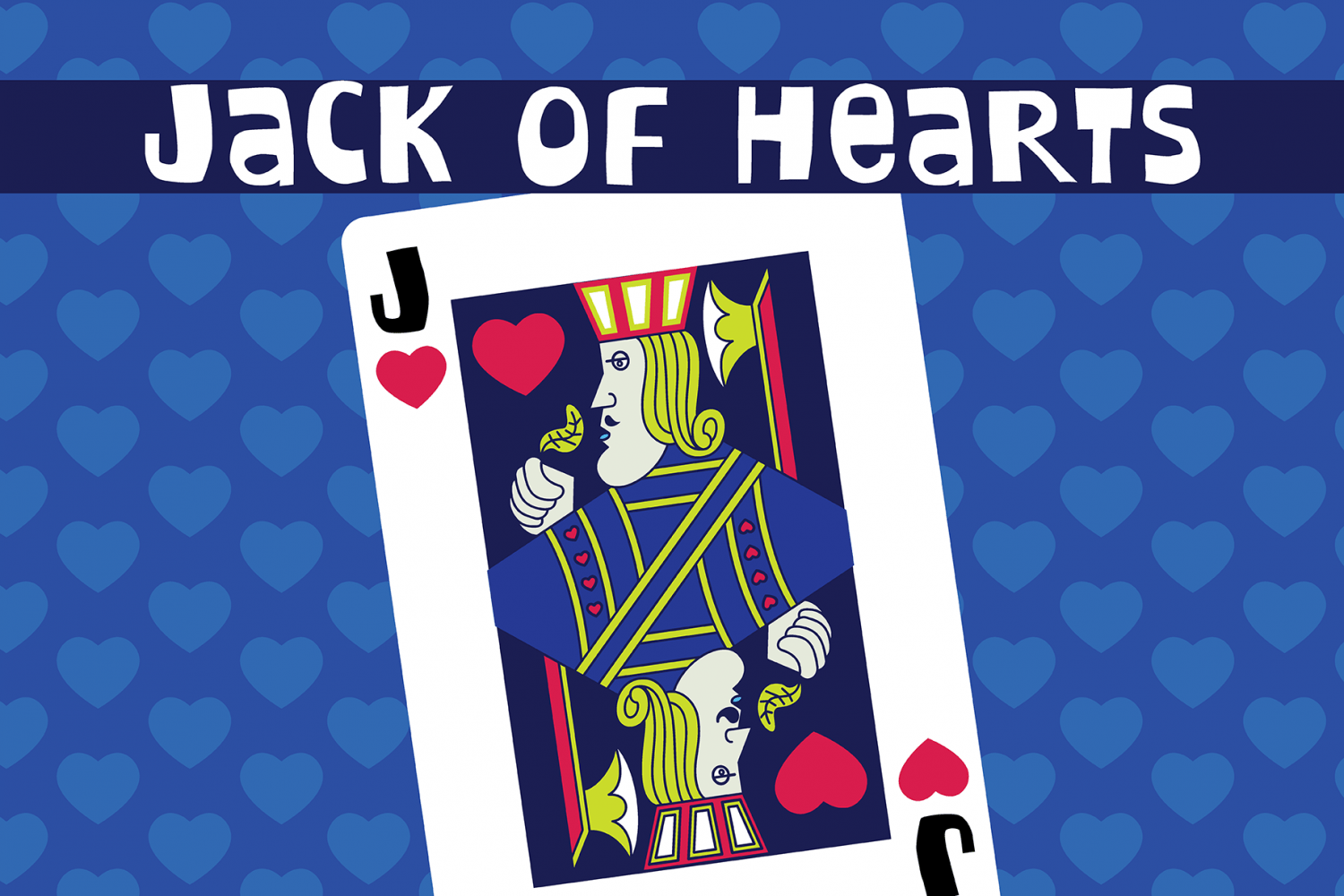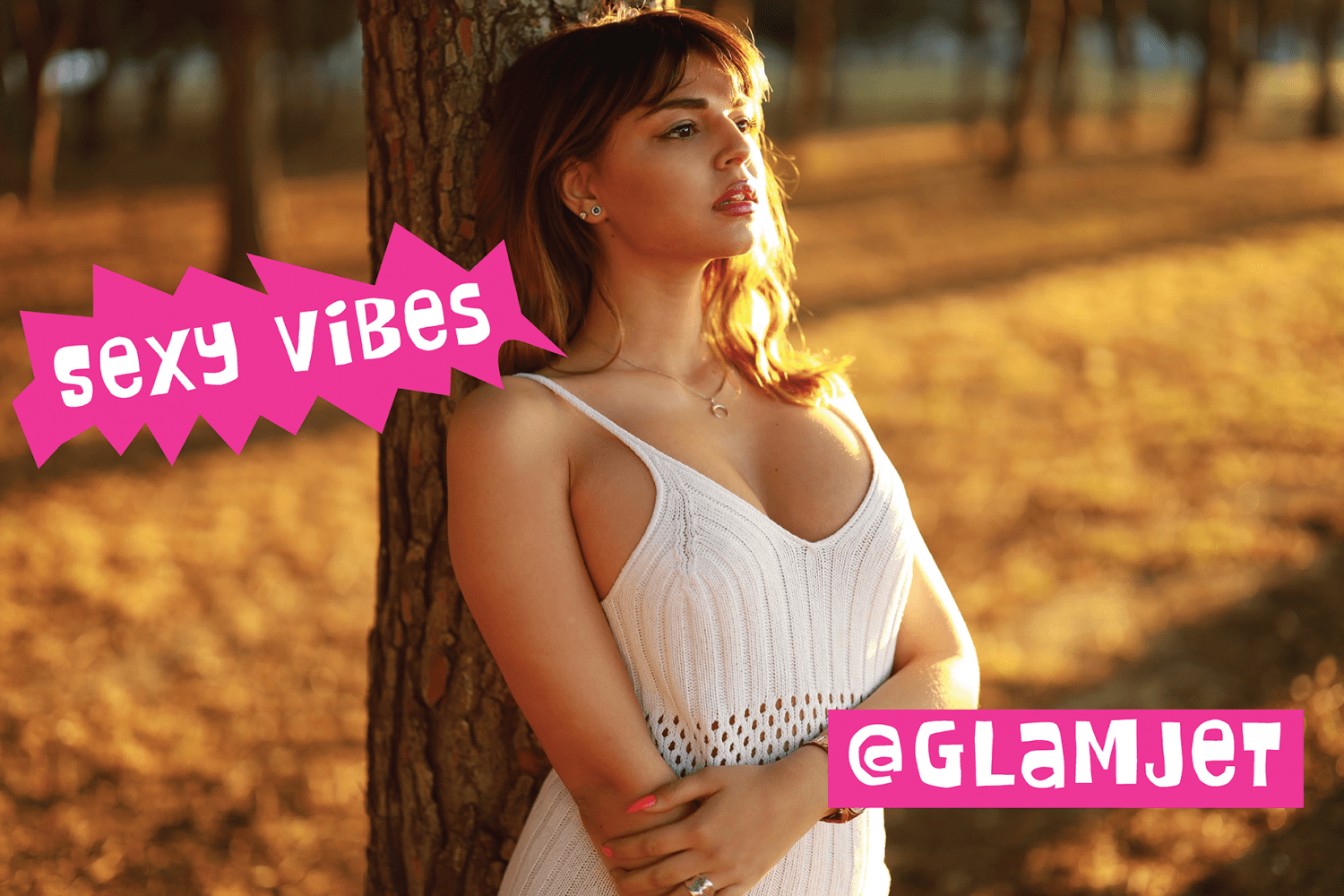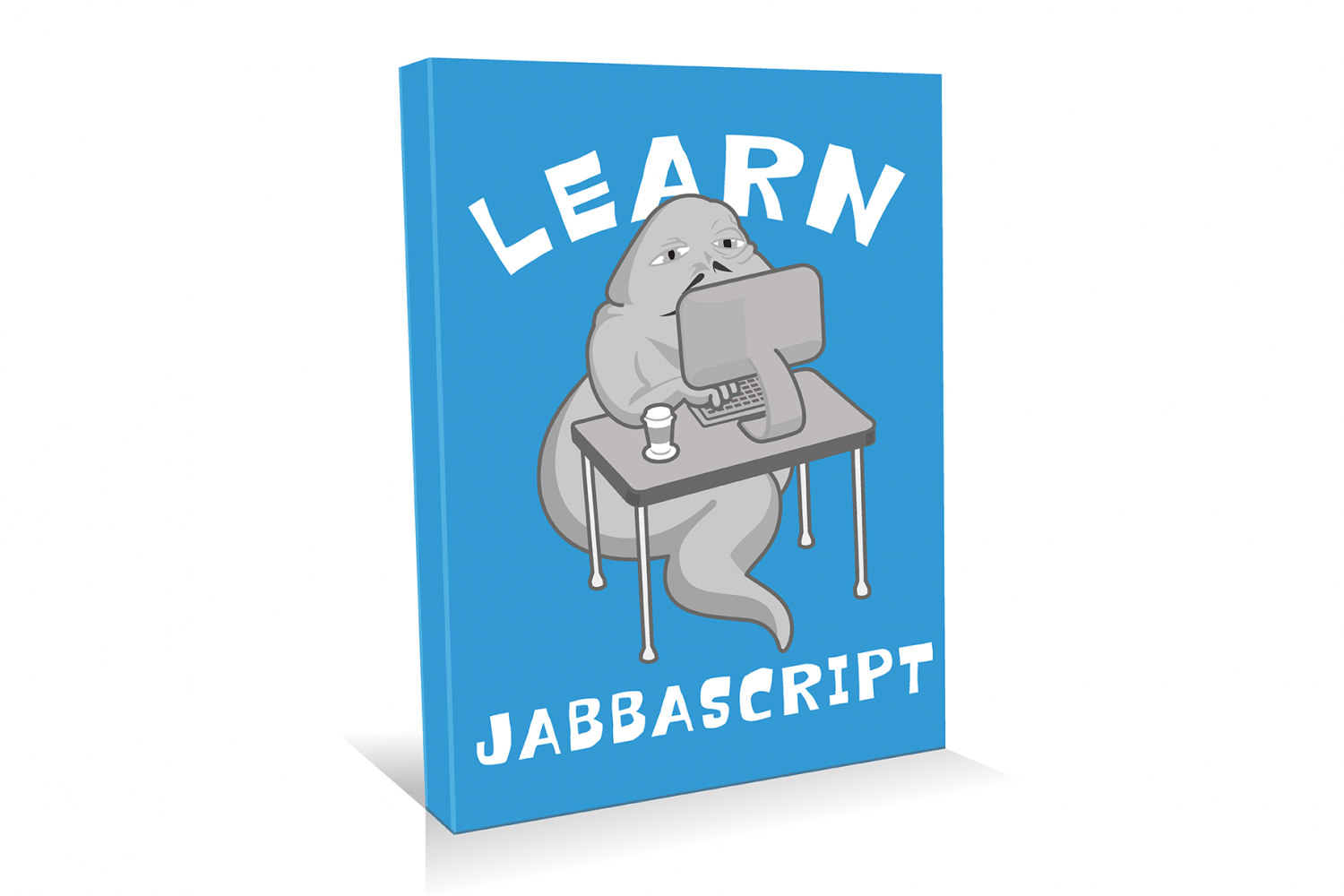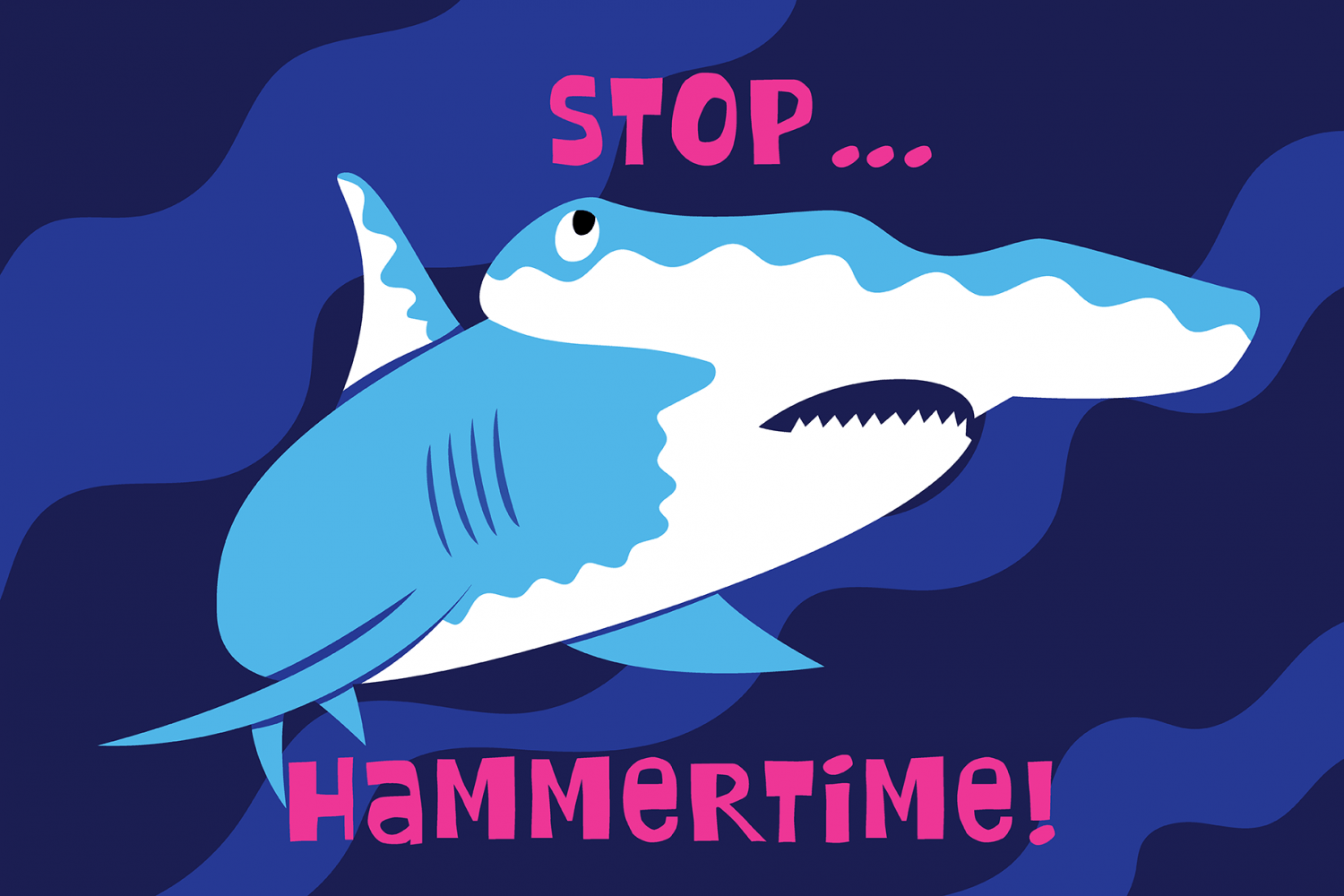
About Liquor Store
Liquor Store is a handmade fun loving font that that has plenty of personality. Liquor Store\’s best uses for headings, logotypes, quotes, apparel design, toy packaging, invites, flyers, posters, greeting cards, product packaging, book covers, printed…